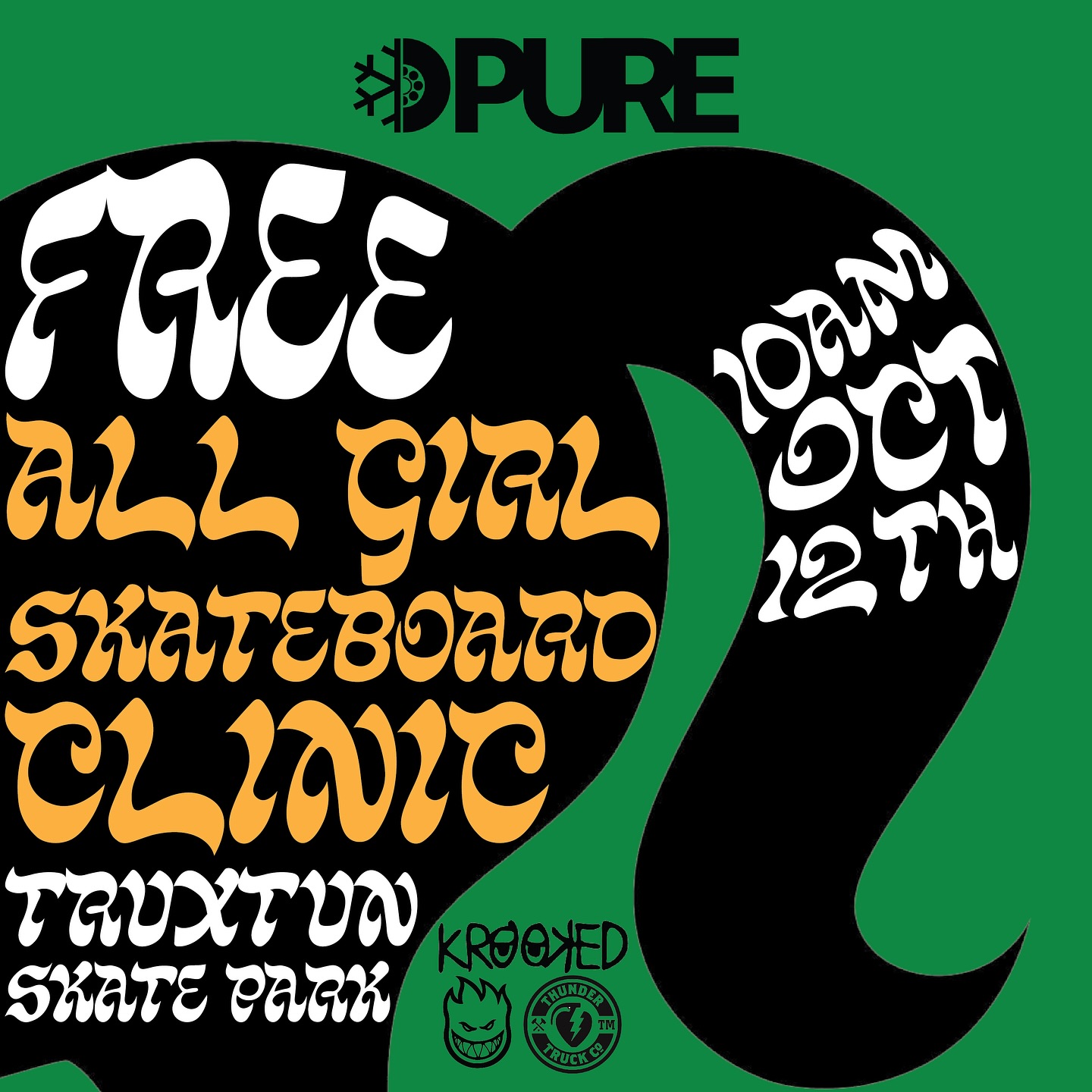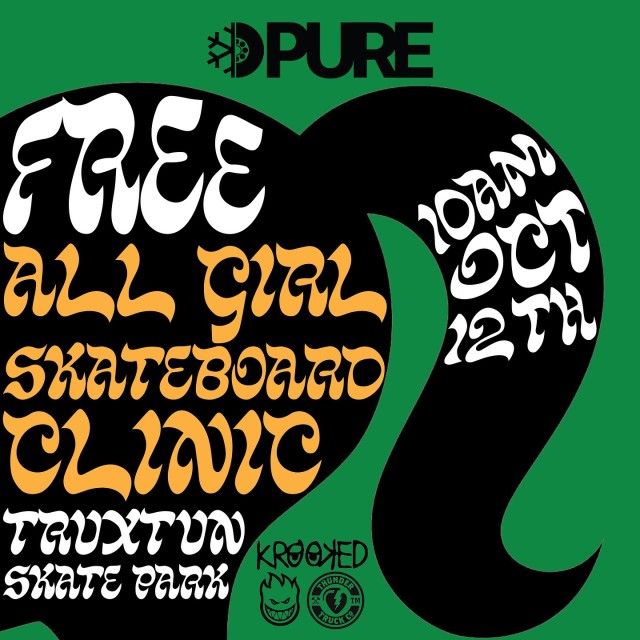
Psychedelic font for All Girl Skateboard Clinic
Looks like
Lazy Daisy
by Sam Bledsoe (Kern Club)
Appears to be directly inspired by the lettering on an album that appeared here before: